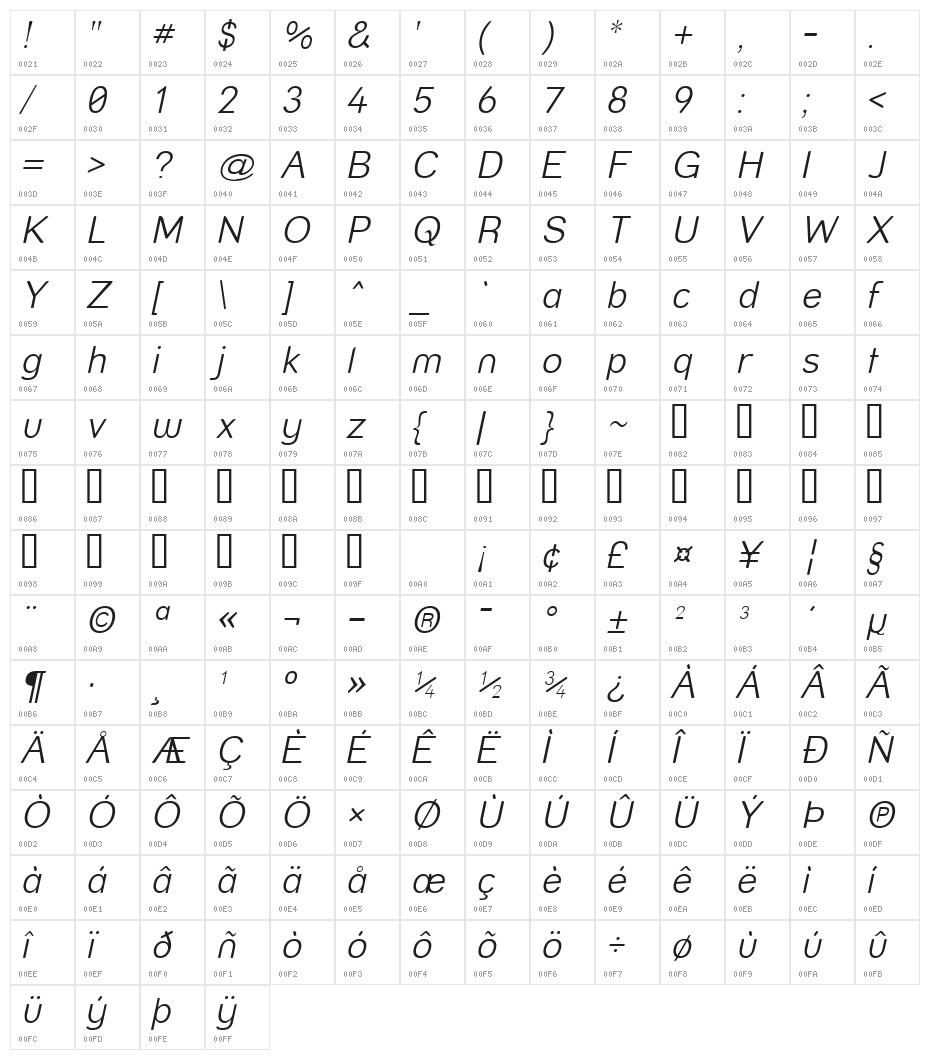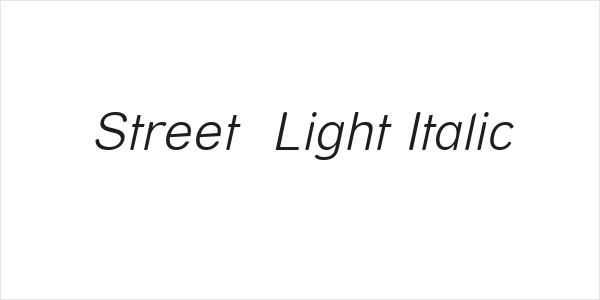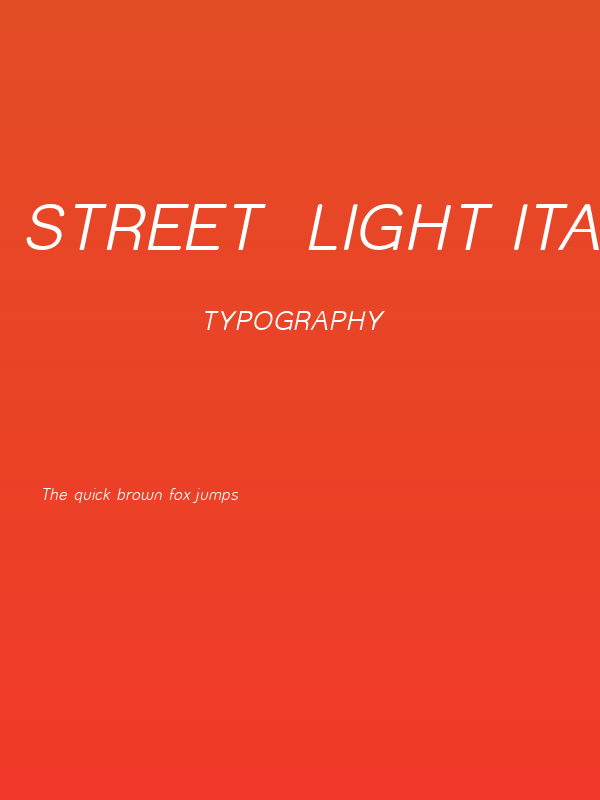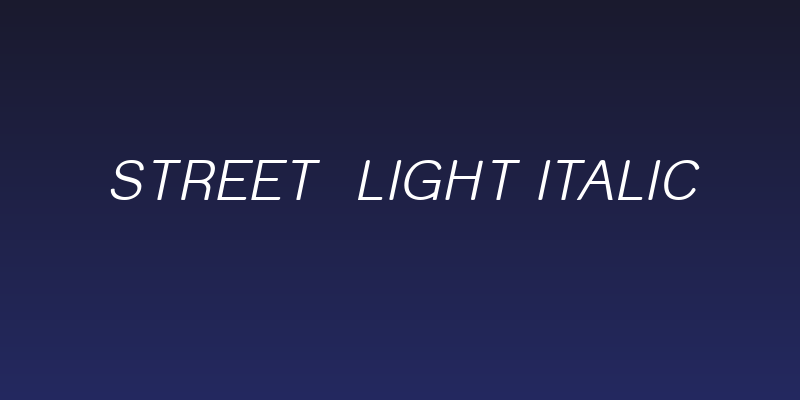
Street Light Italic Font
Street Light Italic Description
This font features a sleek and modern design with a slight italic slant, giving it a dynamic and forward-moving appearance. The characters are clean and streamlined, with smooth curves and a consistent stroke width that enhances readability. The uppercase letters are tall and elegant, while the lowercase letters maintain a harmonious balance with slightly rounded edges. The numerals are clear and distinct, making them easy to read. Special characters are well-integrated, maintaining the overall aesthetic of the font. This font's style is versatile, suitable for both digital and print media.
| Proposed Projects | Ideal for branding, advertising, website headers, and modern editorial design. |